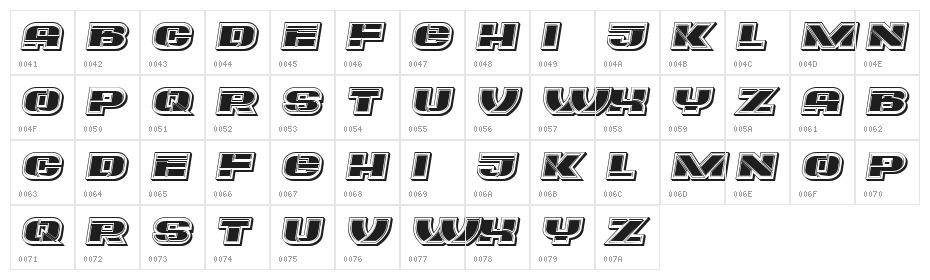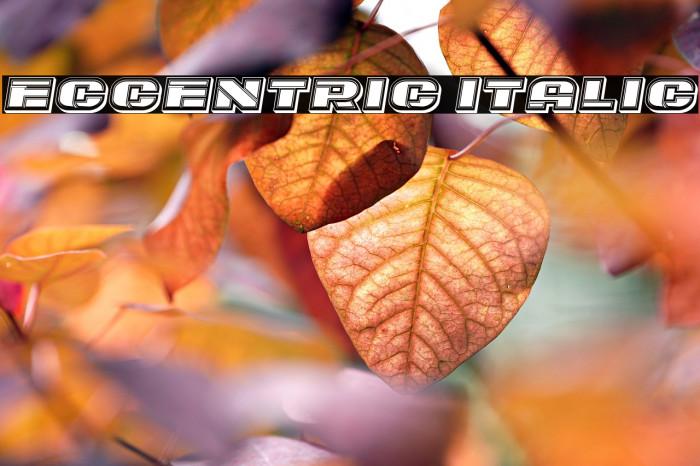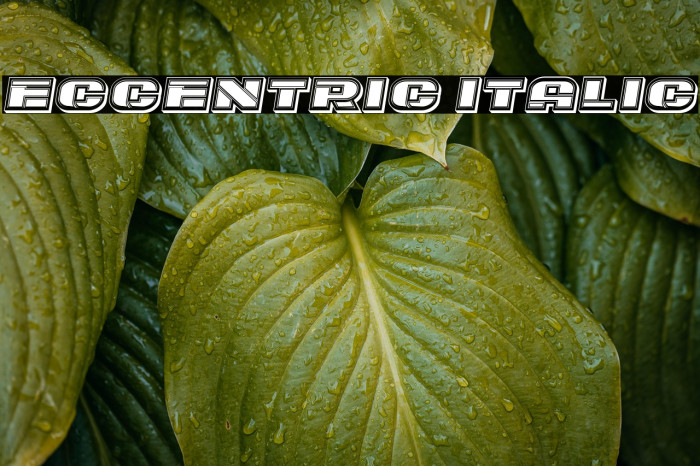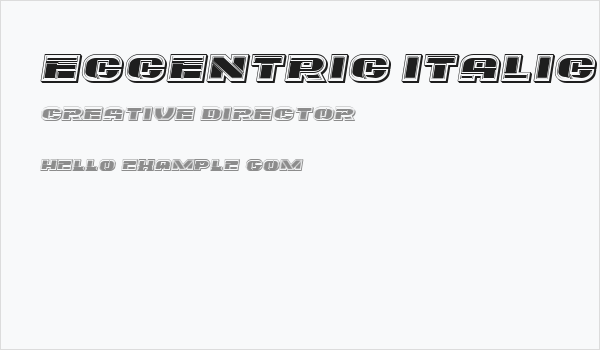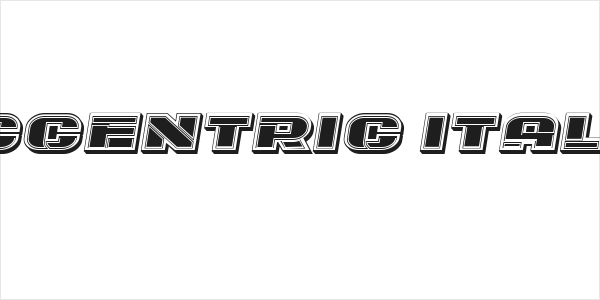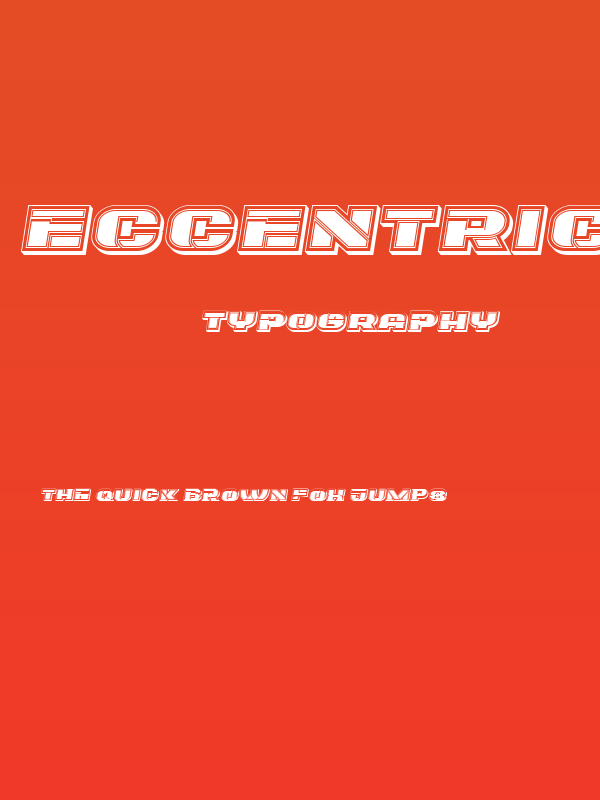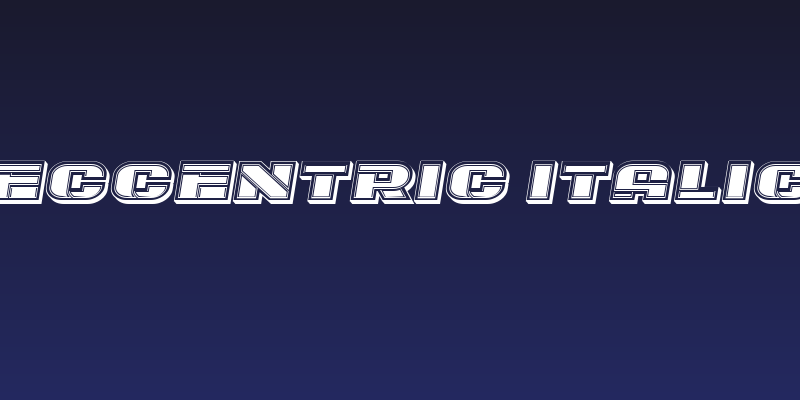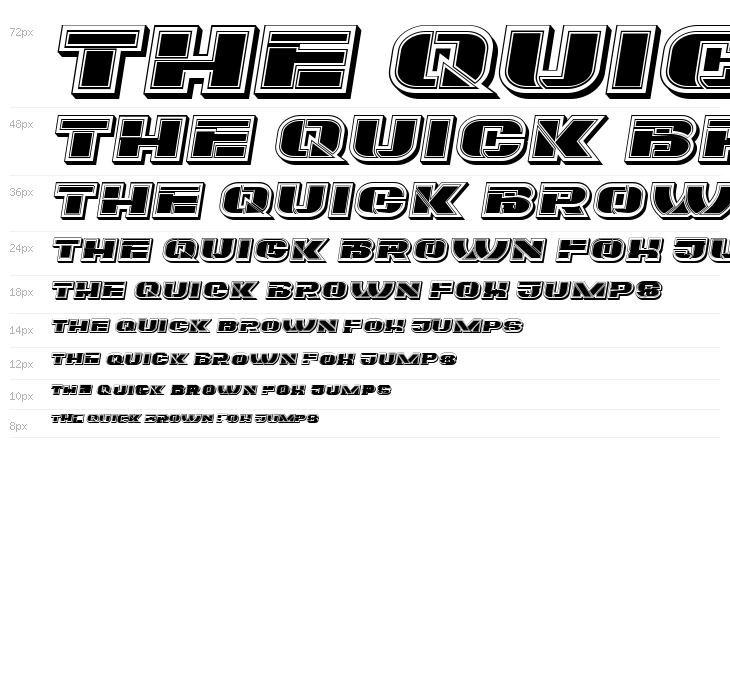
Eccentric Italic Font
Eccentric Italic Description
This font features a bold, decorative style with a unique three-dimensional effect created by its shadowed outline. The characters are uppercase and exhibit a geometric structure with sharp angles and clean lines. The italic slant adds a dynamic and forward-moving feel, enhancing its modern and edgy appearance. The font's design is eye-catching and suitable for making a strong visual impact. Its boldness and distinct style make it ideal for headlines or titles where attention is paramount. The spacing between characters is relatively tight, contributing to its compact and cohesive look.
| Proposed Projects | Ideal for use in posters, logos, branding materials, and any design requiring a striking and modern aesthetic. |